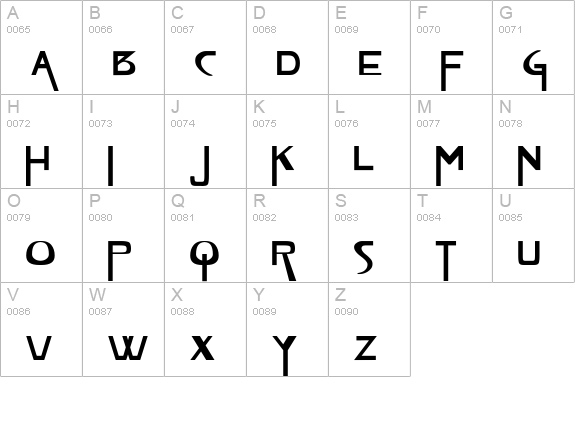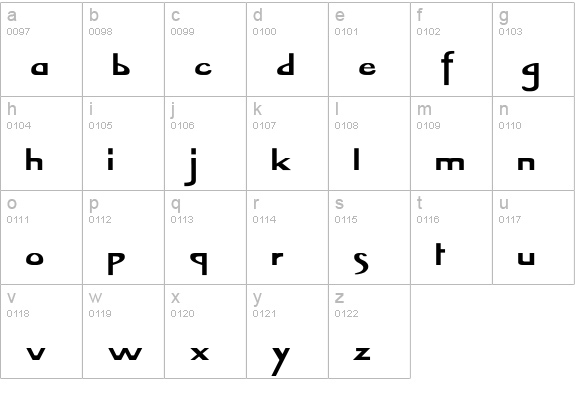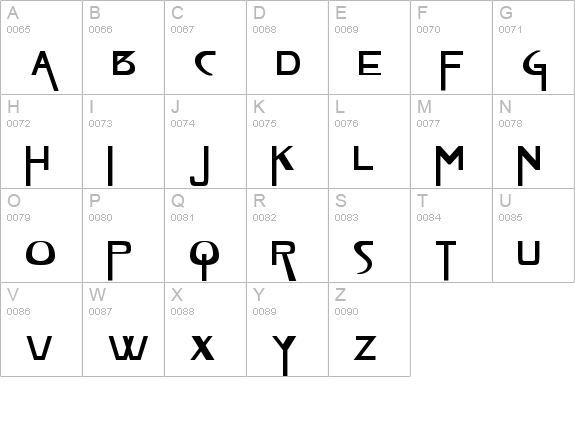
VireoFont Wd Bold Font Details
VireoFont Wd Bold is a strong, high-contrast variant in the VireoFont typeface family \xE2\x80\x94 well suited to headlines, attention-grabbing titles, and strong calls-to-action.
VireoFont Wd Bold is a visually striking and versatile typeface that exudes confidence and authority. With its bold and commanding presence, this font is perfect for making a bold statement in your designs. Whether you're creating eye-catching headlines, attention-grabbing posters, or impactful branding materials, VireoFont Wd Bold will deliver the impact you desire. Featuring strong, substantial letterforms, VireoFont Wd Bold commands attention without sacrificing legibility. Its thick strokes and sharp angles create a sense of strength and power, making it an ideal choice for projects that require a strong visual impact. What sets VireoFont Wd Bold apart is its versatility. This font is equally at home in both modern and traditional design contexts, easily adapting to various styles and themes. Its bold nature adds intensity to any design, while its clean and well-defined letterforms ensure readability across different platforms and mediums. One of the best things about VireoFont Wd Bold is that it is free. Yes, you read that correctly. This exceptional font is freely available to download at FontsMarket.com. You can now enhance your designs without breaking the bank, adding a touch of elegance and power without spending a dime. So, whether you're a professional designer or a casual enthusiast, VireoFont Wd Bold is a must-have in your font collection. Its bold and assertive nature, combined with its versatility and availability as a free download, make it an invaluable resource for all your design projects. Elevate your designs with VireoFont Wd Bold and make an unforgettable impression.